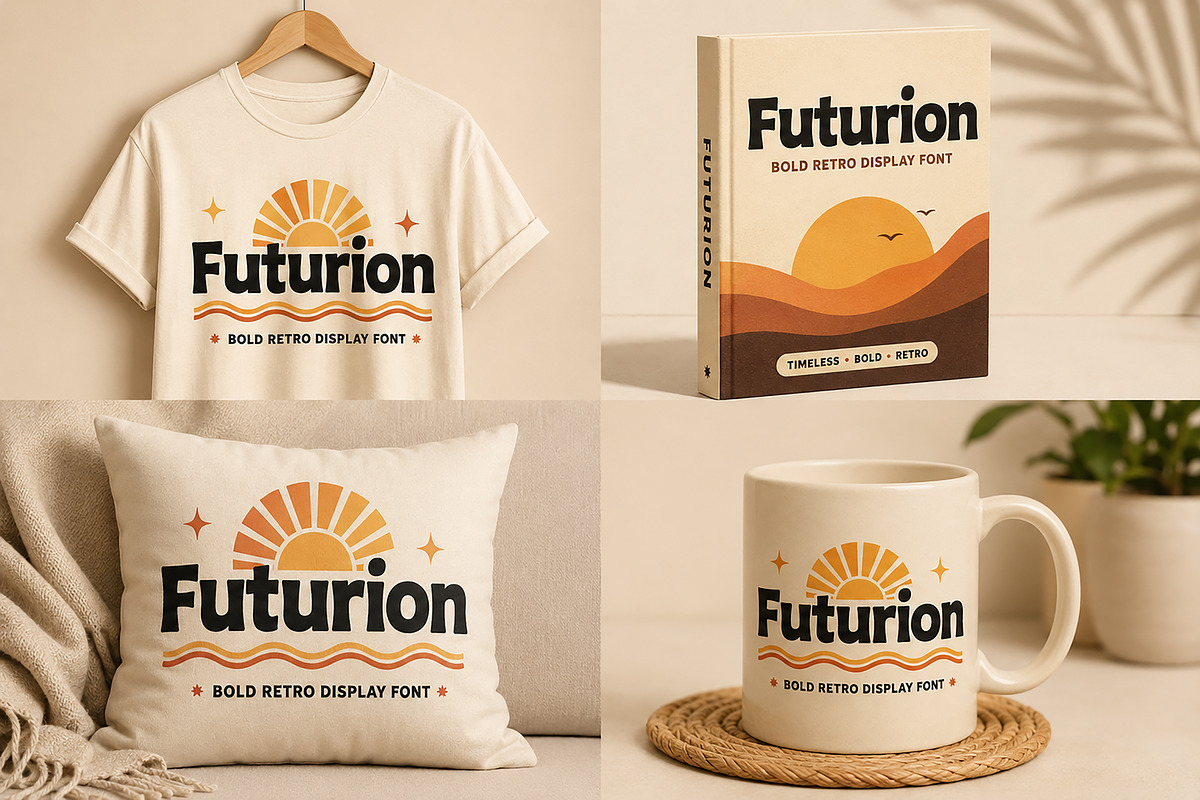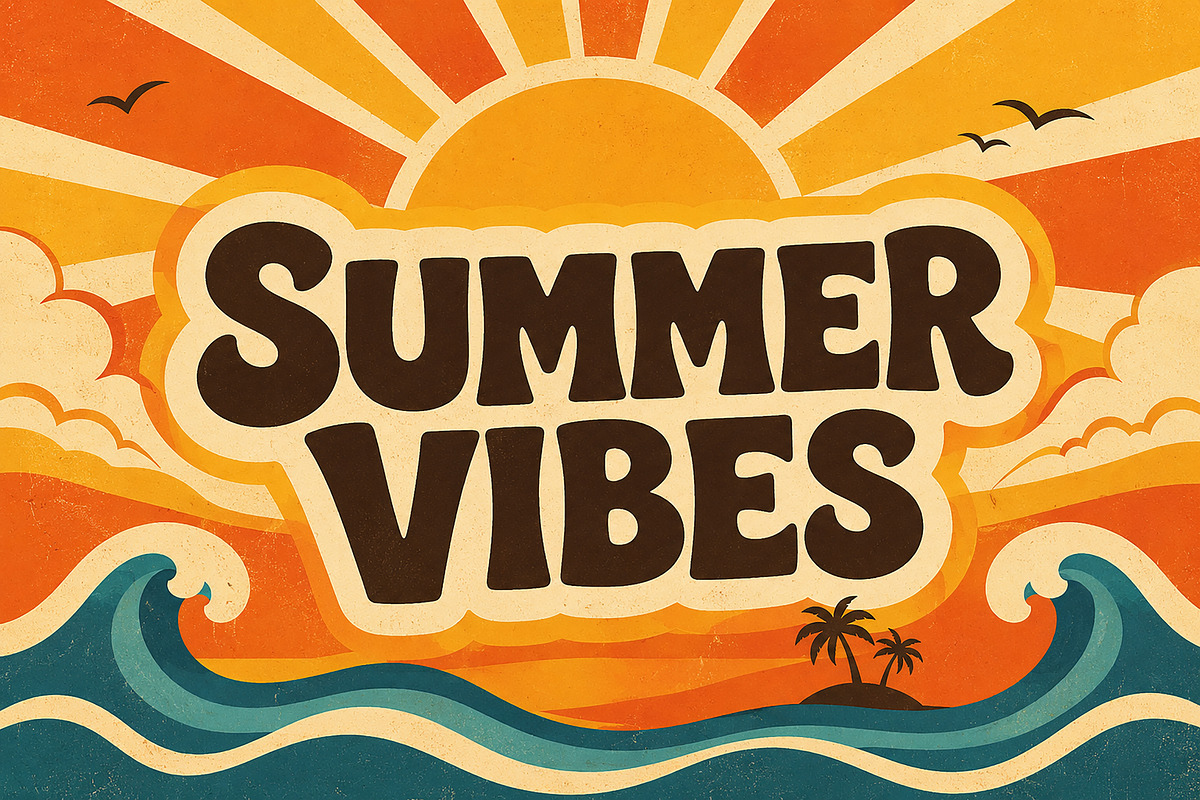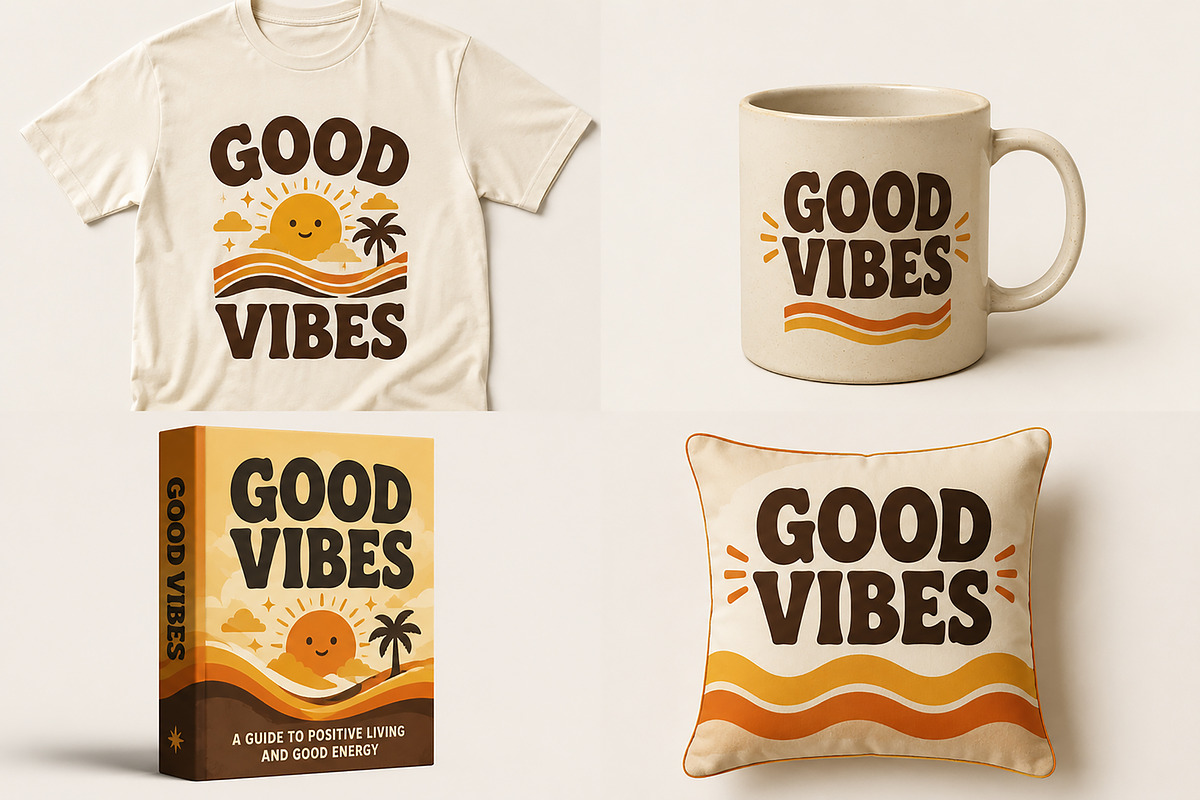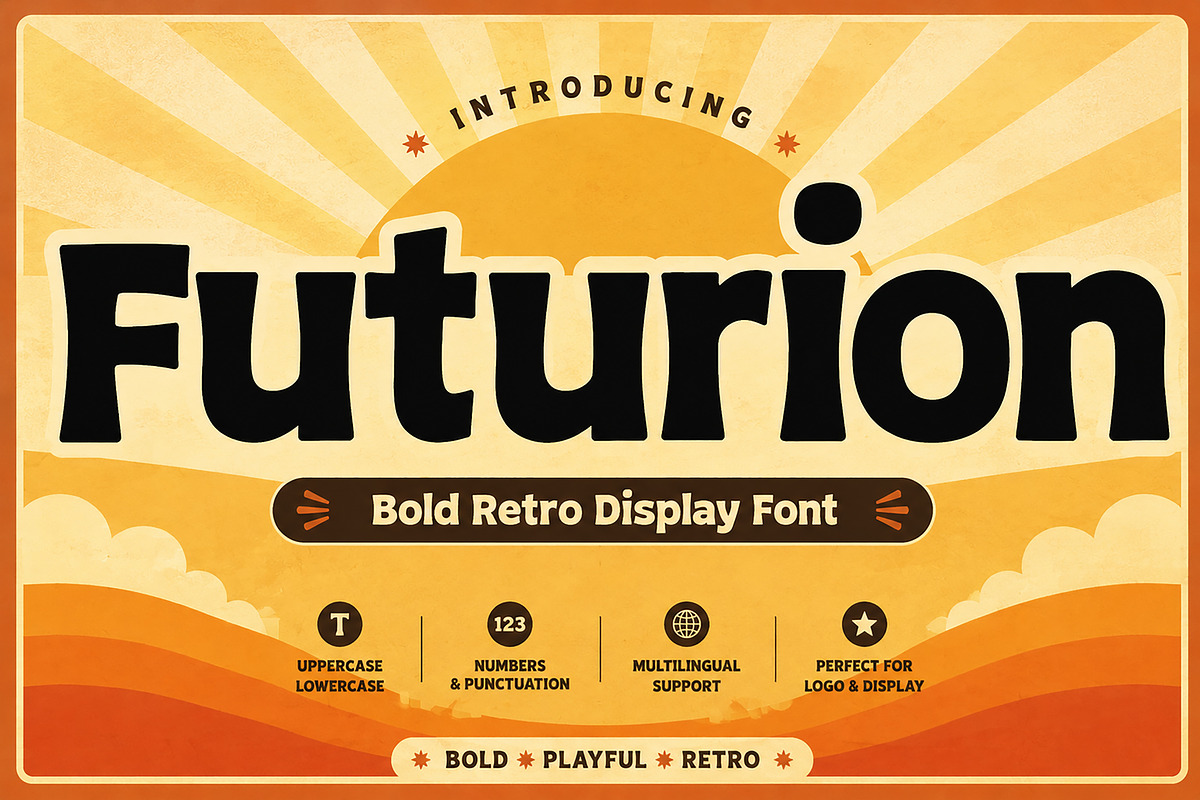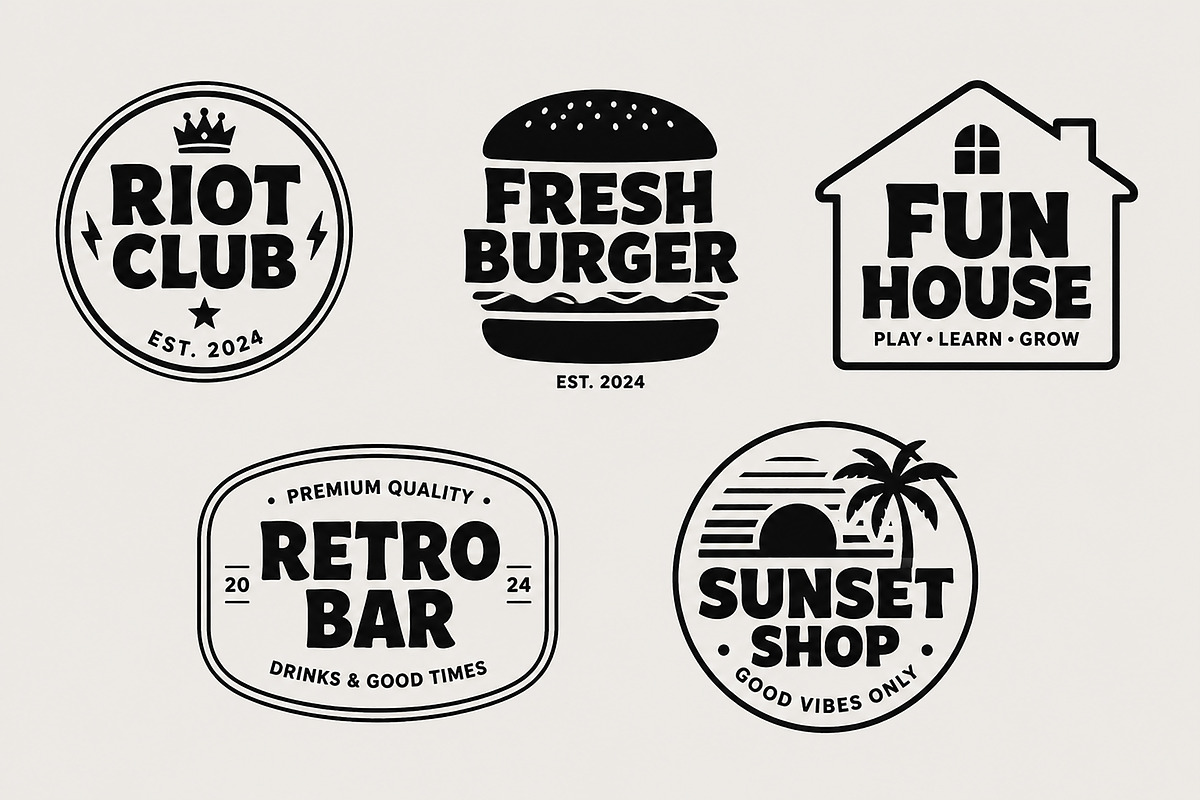
Futurion
Futurion – Bold Retro Display Font
Introducing Futurion, a bold and playful retro display font designed to make your projects stand out with confidence and personality. Inspired by vintage 70s aesthetics and modern branding trends, Futurion combines chunky letterforms, soft curves, and a fun retro vibe that instantly grabs attention.
Whether you're creating logos, packaging, posters, social media graphics, merchandise, book covers, or branding projects, Futurion delivers a strong visual impact while maintaining excellent readability.
Its unique character shapes make it perfect for creative designers, entrepreneurs, and brands looking to add a nostalgic yet modern touch to their designs.
Branding Projects
Retro Posters
T-Shirt Design
Advertising
Stickers & Labels
Merchandise Design
Children's Products
Creative Headlines
Bring bold retro energy to your next creative project with Futurion!